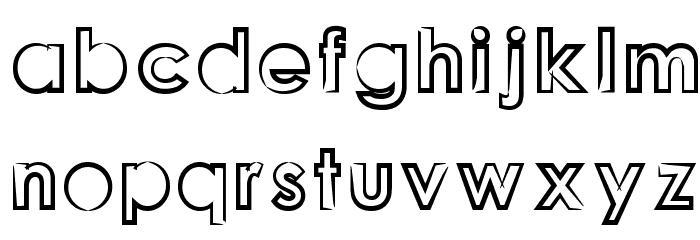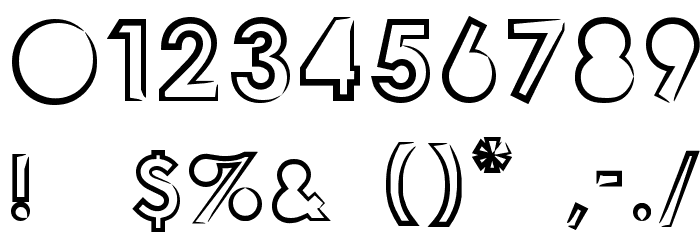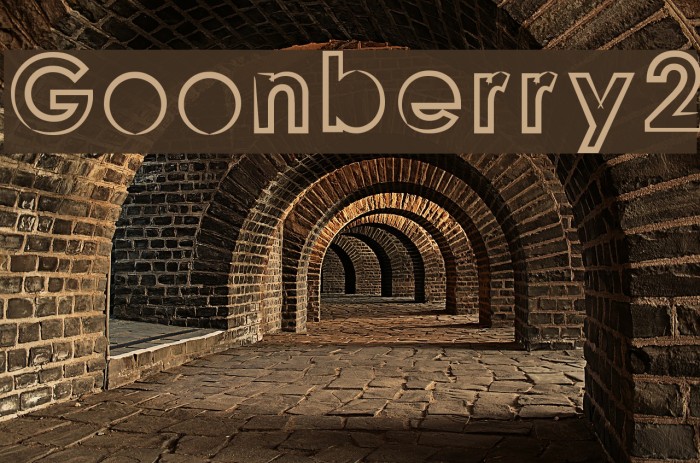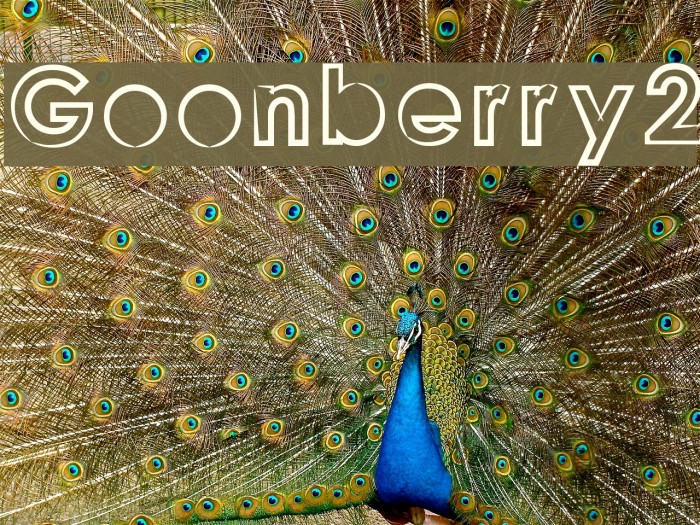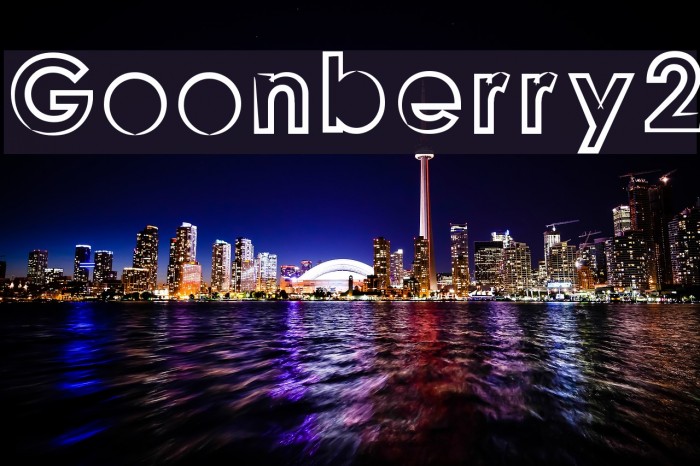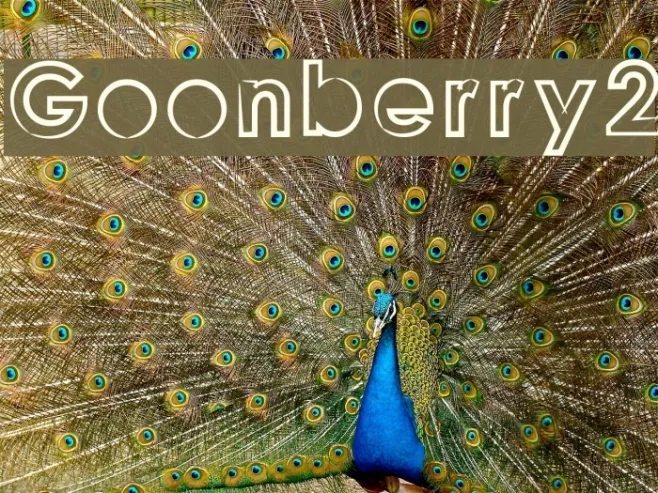
Goonberry2 Font
This font features a bold and playful design with a unique outline style that gives each character a three-dimensional appearance. The uppercase letters are striking and dynamic, while the lowercase letters maintain a consistent style with a slightly softer edge. Numbers and special characters are designed to match the boldness and creativity of the alphabet, making them stand out. The font's overall aesthetic is modern and eye-catching, perfect for projects that require a strong visual impact.
A bold, playful font with a unique outline style and three-dimensional appearance.
- Proposed Projects: Ideal for posters, headlines, branding, and any design project that requires a bold and creative touch.